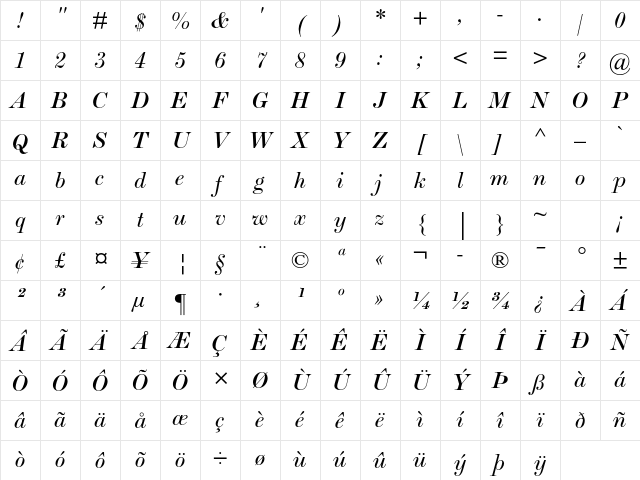
Scotch Roman MT Std Italic
Complete Scotch Roman MT Std Italic glyph index. Displaying only characters natively supported by Scotch Roman MT Std Italic font.
Design Context for Scotch Roman MT Std
Scotch Roman MT Std is a composed and adaptable typeface that performs quietly and consistently across a wide range of design contexts. The slanted form adds forward momentum and visual energy.
Pro Tip: Use Scotch Roman MT Std for emphasis, pull quotes, and subheadings where its slanted energy can add rhythm to the layout.